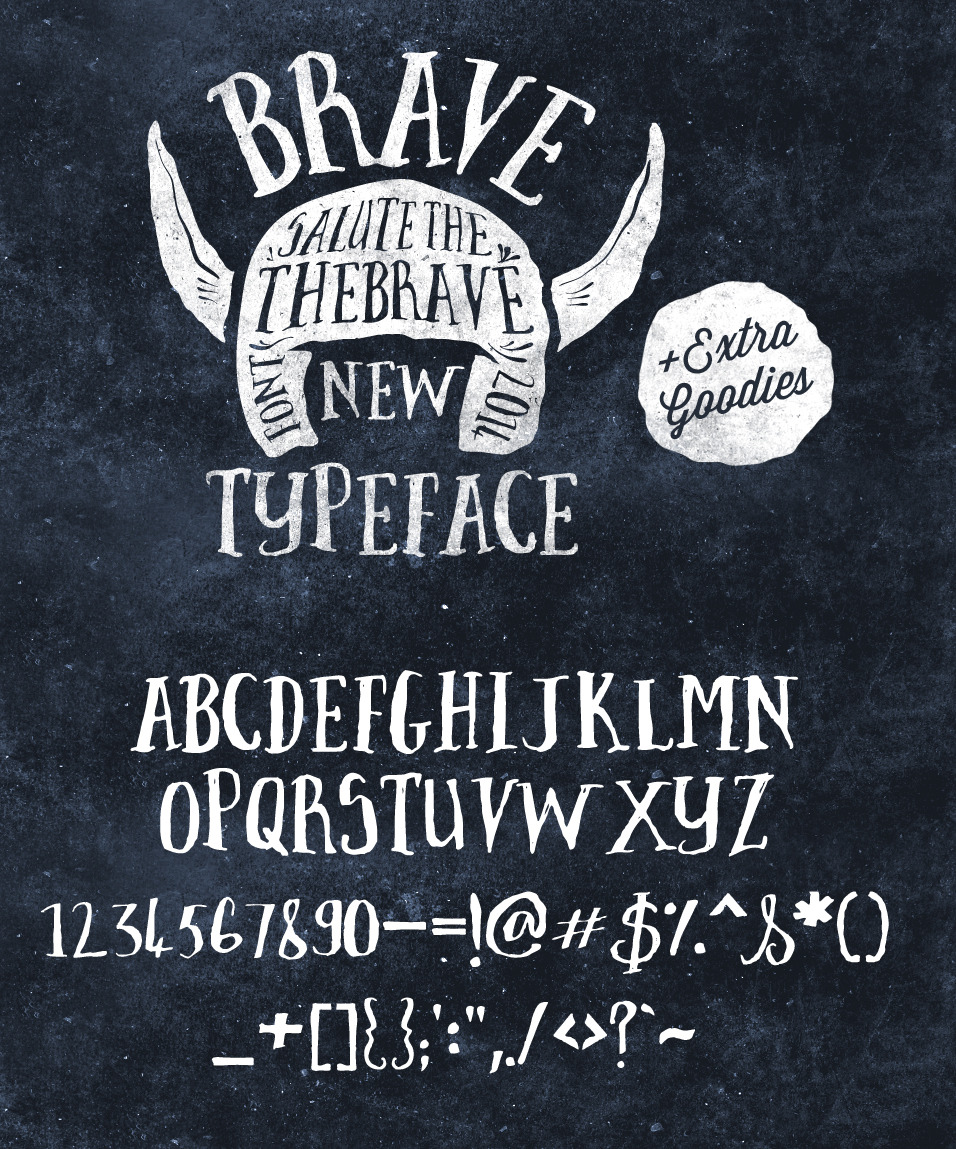
Brave New Font Pack & Graphic Extras
A handmade, Brave New Font.....sketchy, illustrated, and hand-drawn with love.
This is more than just a typeface - this is a pack, and it allows you to be even more creative than you would have been with just the font :)
Included are some juicy extra design elements to help you along, and get your creative juices flowing :)